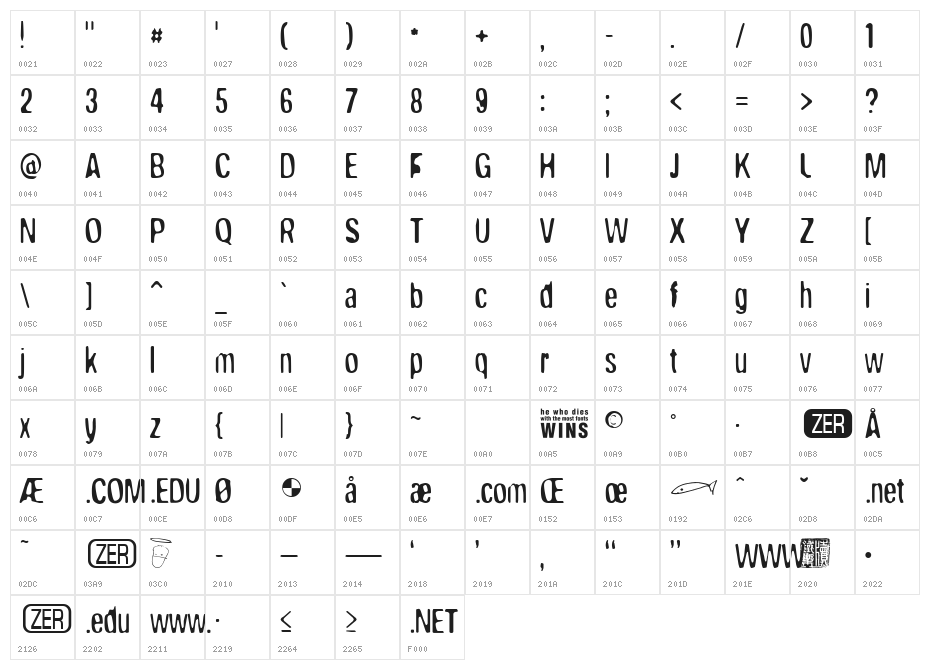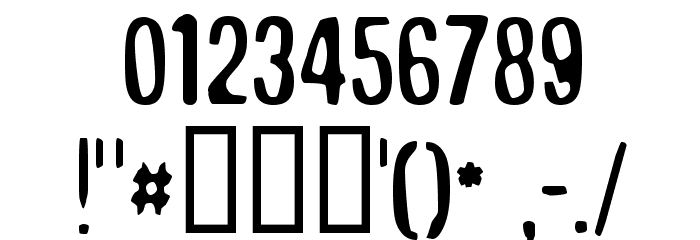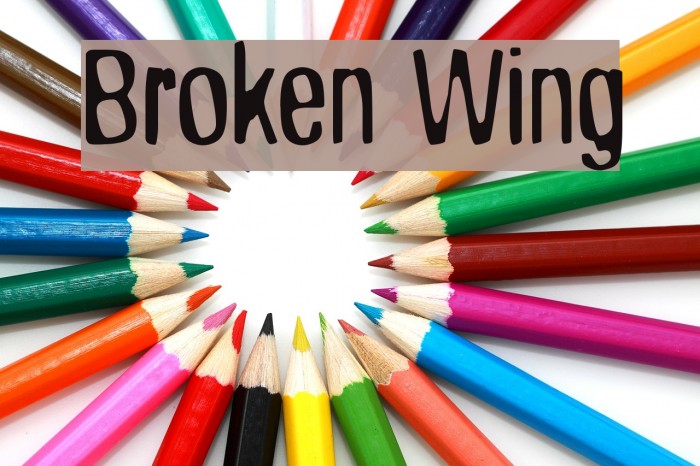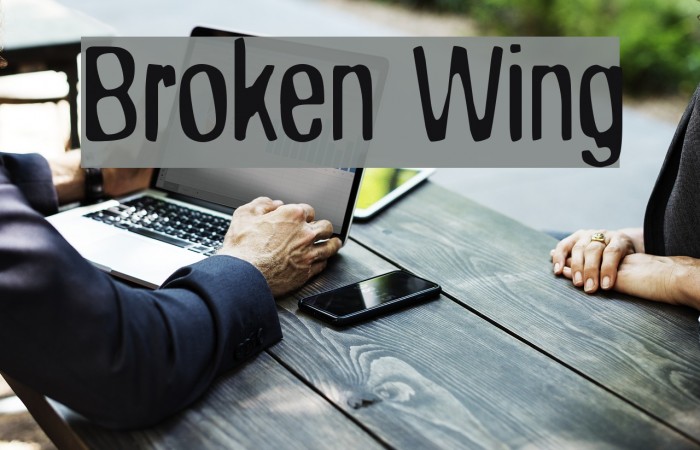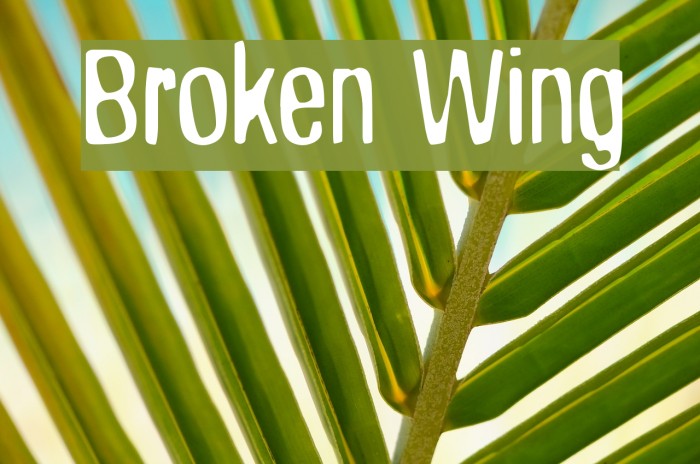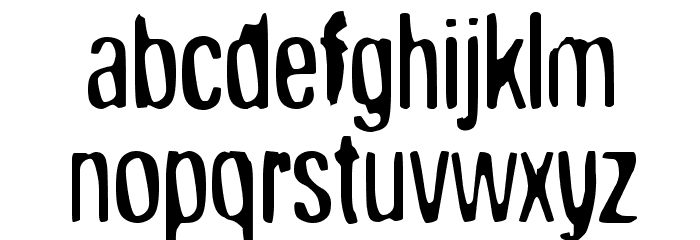
Broken Wing Font
Broken Wing Description
This font features a unique and playful design with irregular, hand-drawn strokes that give it a whimsical and artistic appearance. The characters are bold and slightly distorted, creating a sense of movement and energy. The uppercase and lowercase letters maintain a consistent style, with quirky variations that add character to the text. Numbers and special characters are also included, following the same playful aesthetic. This font is ideal for creative projects that require a touch of individuality and flair.
| Overall Style | Artistic, Whimsical |
| Use Case | Headlines, Posters, Creative Branding |
| Proposed Projects | Ideal for children's books, creative posters, artistic branding, and playful invitations. |